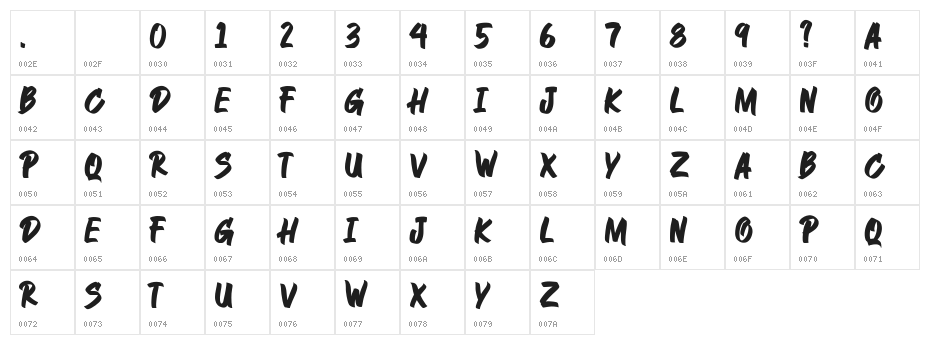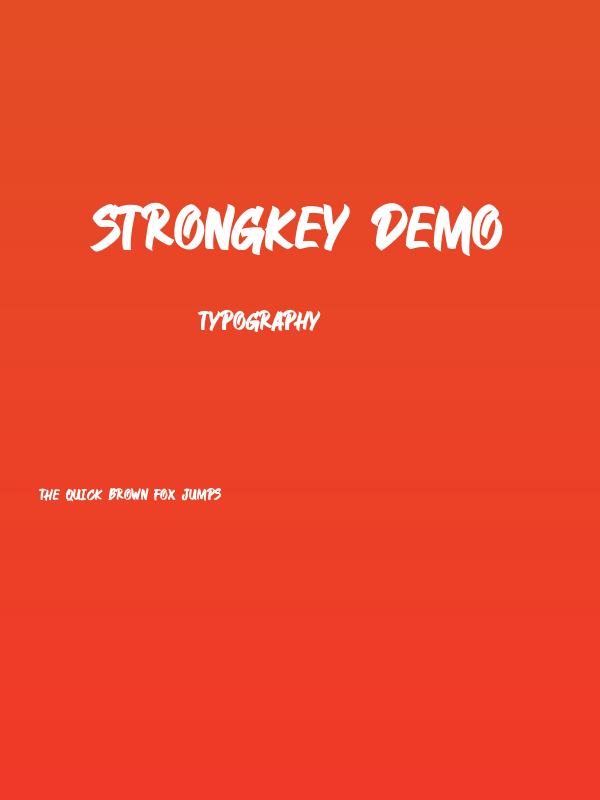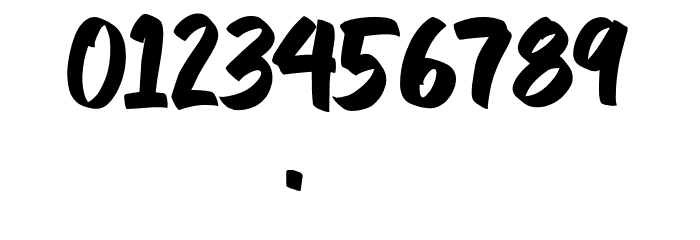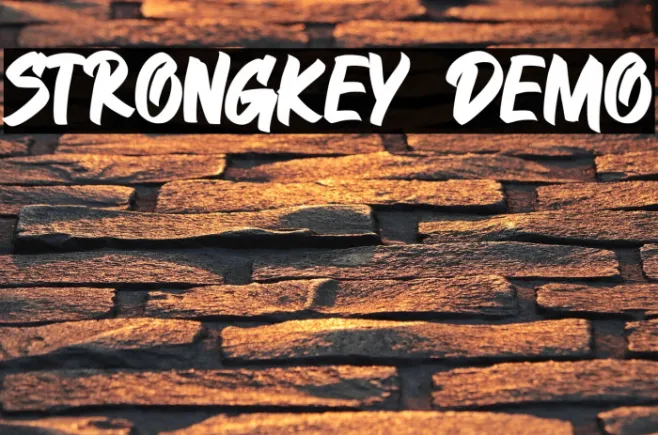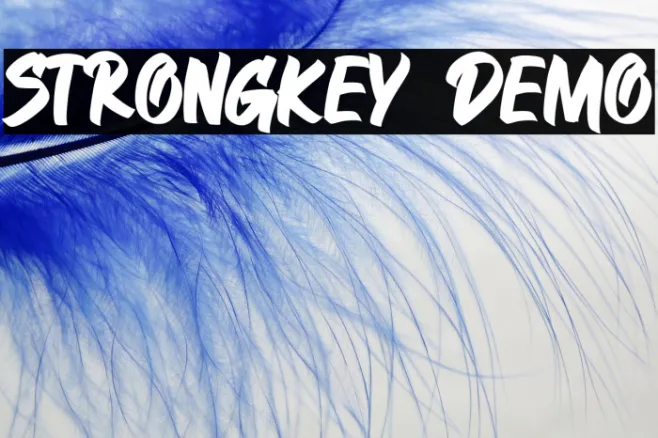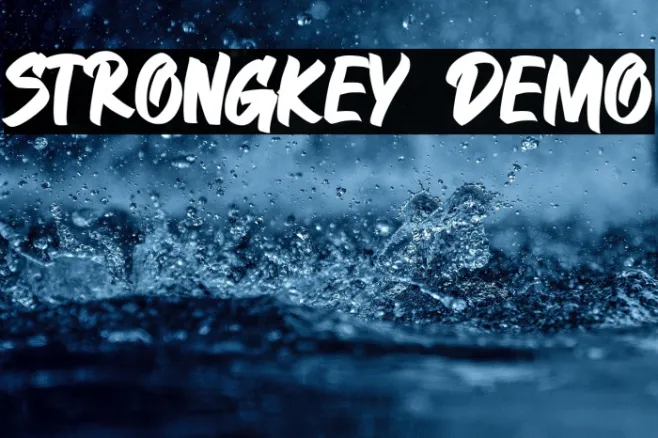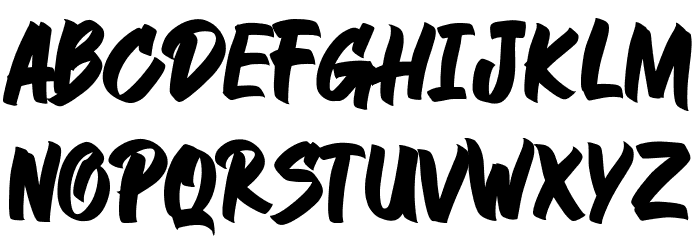
STRONGKEY DEMO Font
STRONGKEY DEMO Description
This font features a bold and energetic style, characterized by its thick, brush-like strokes that convey a sense of movement and dynamism. The letters are slightly slanted, giving them a casual yet assertive appearance. The uppercase and lowercase letters maintain a consistent style, with rounded edges and a hand-drawn feel. The numbers follow the same aesthetic, ensuring uniformity across all characters. This font's design is both eye-catching and versatile, making it suitable for a variety of creative applications.